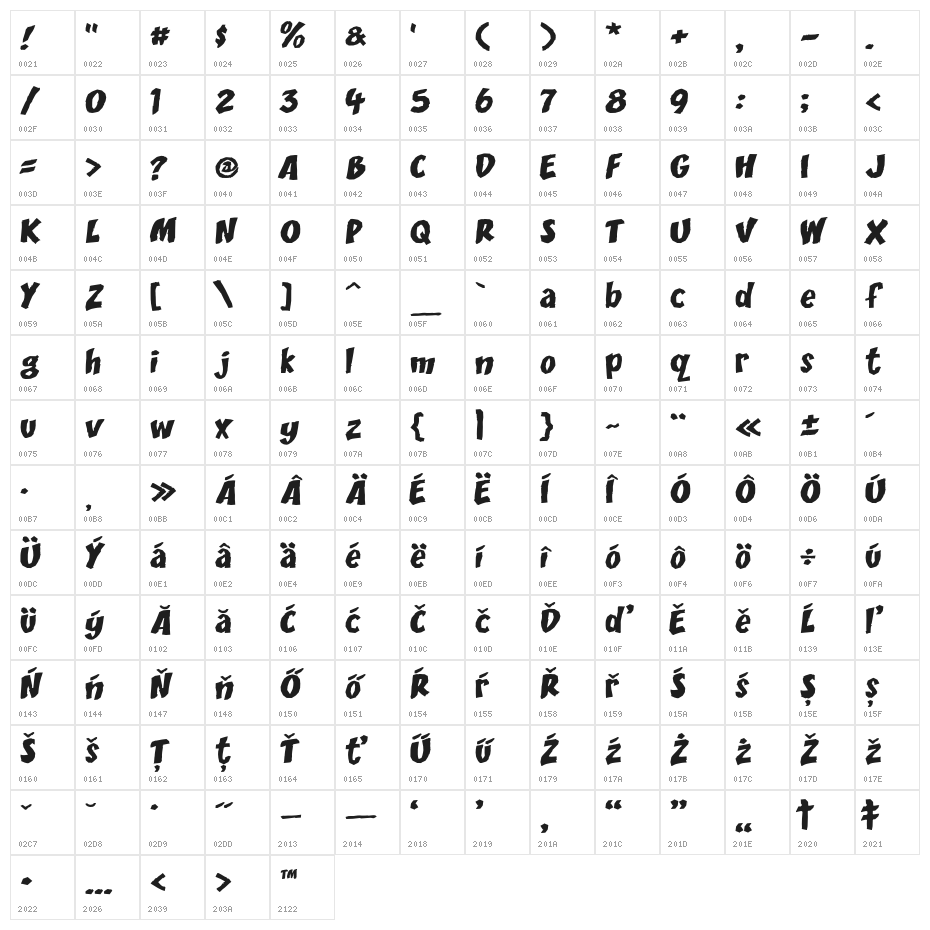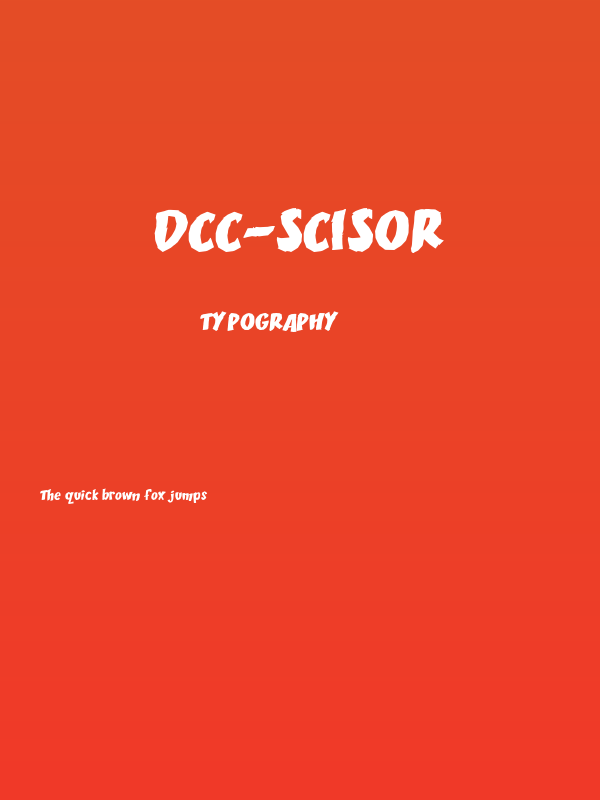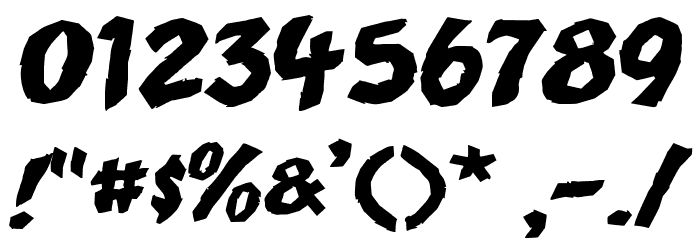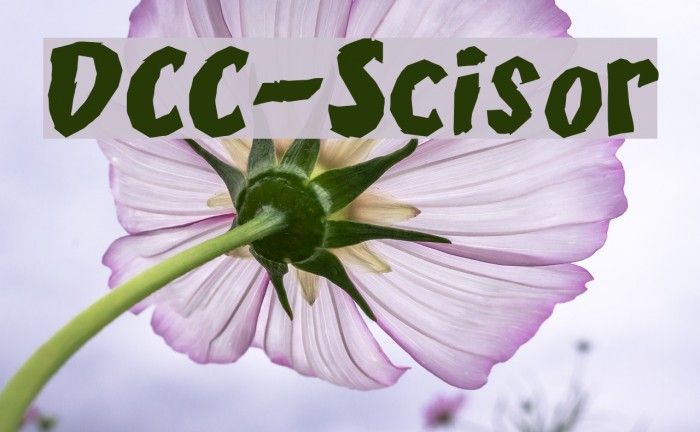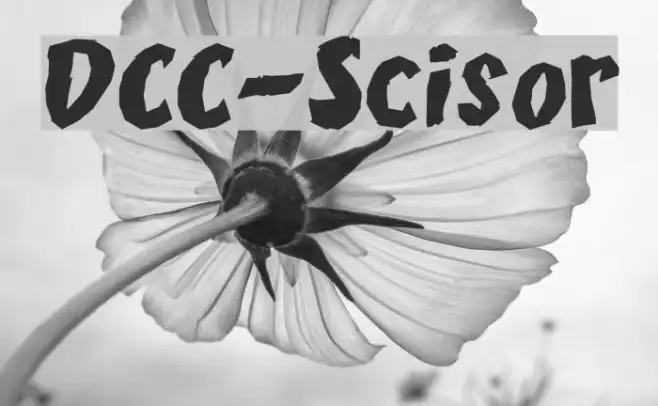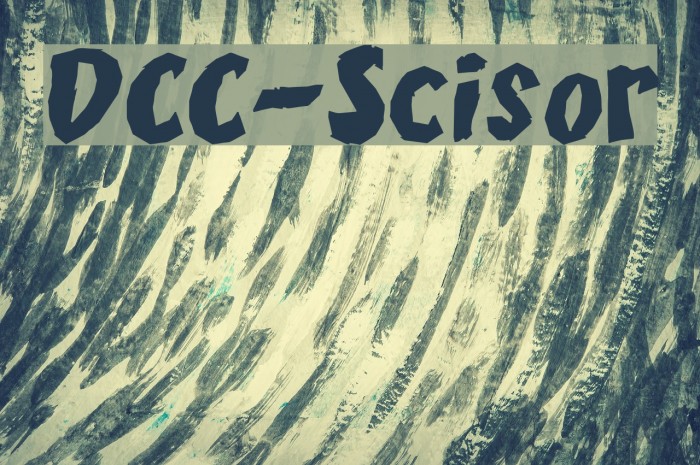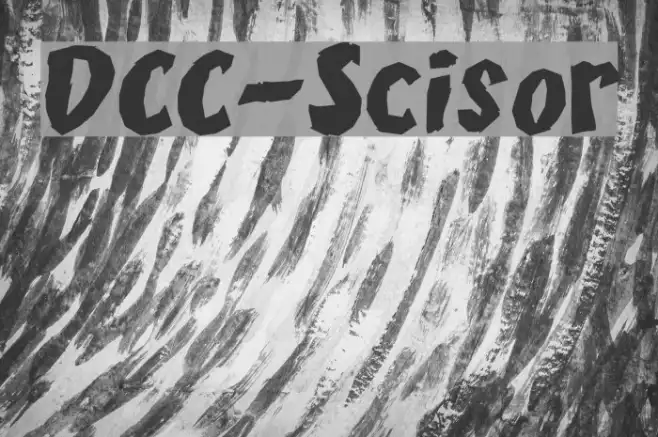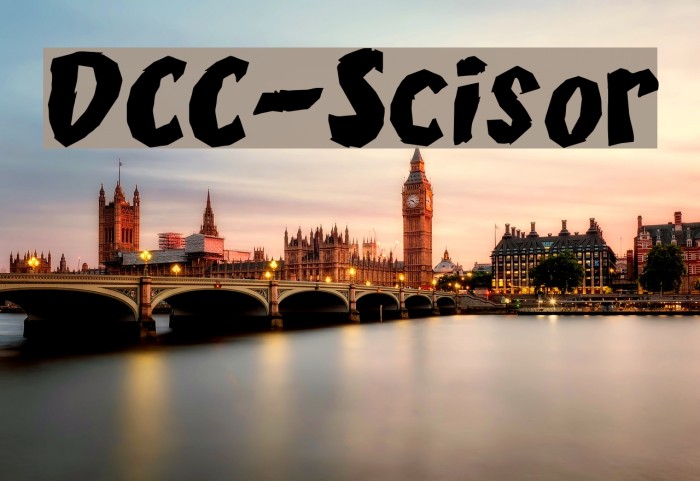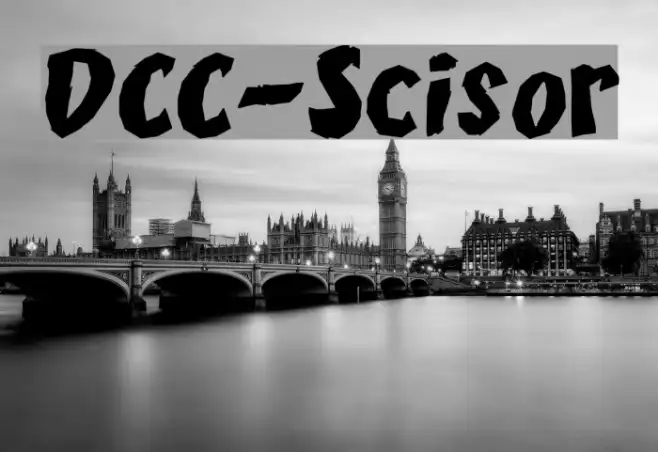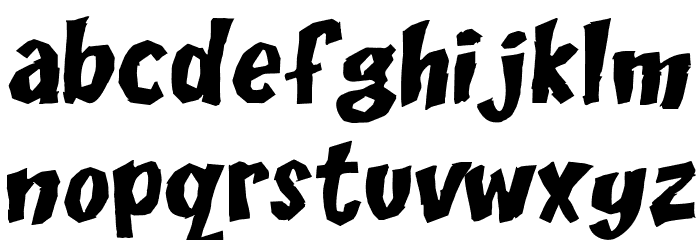
DCC-Scisor Font
DCC-Scisor Description
This font features a bold, dynamic style with a hand-cut appearance, reminiscent of paper cutouts or stencil designs. The characters have irregular edges, giving them a rugged and artistic feel. The uppercase and lowercase letters maintain a consistent weight, while the numerals and special characters complement the overall aesthetic. The font's unique style makes it stand out, ideal for creative and expressive projects. Its boldness ensures visibility and impact, making it suitable for attention-grabbing designs.
| Proposed Projects | Ideal for posters, album covers, branding, and any project requiring a bold, artistic touch. |